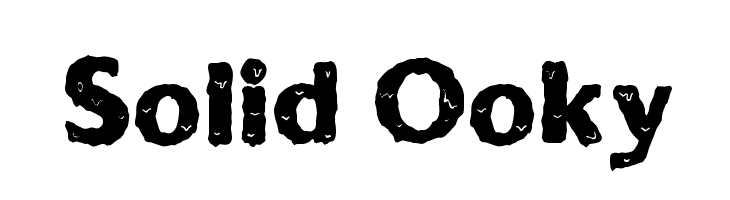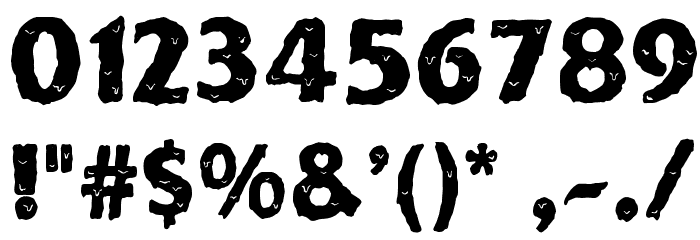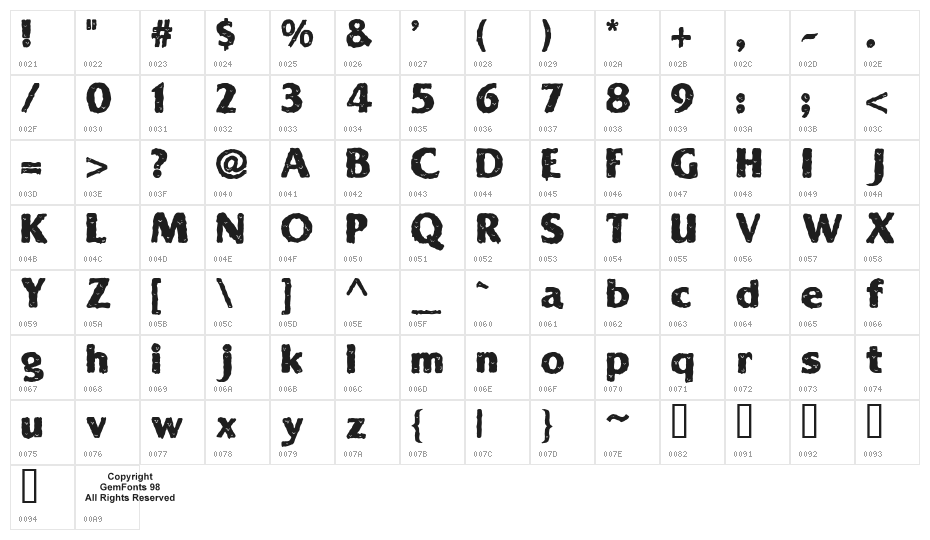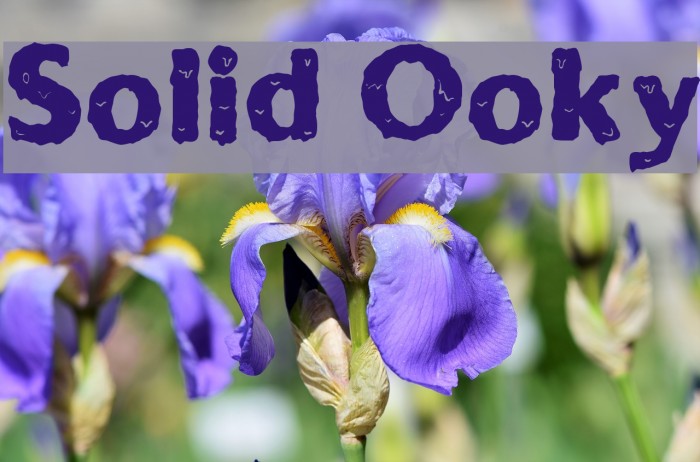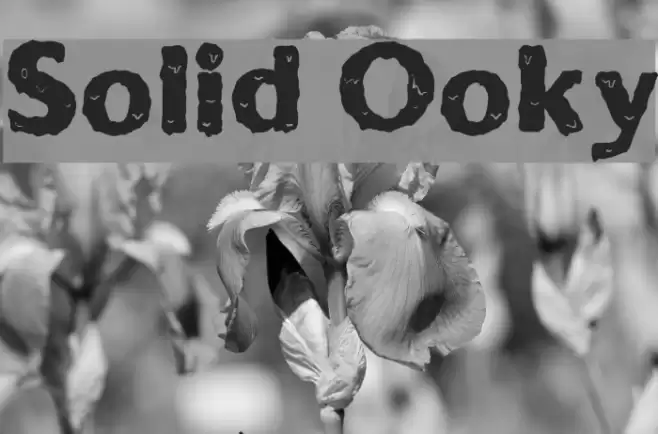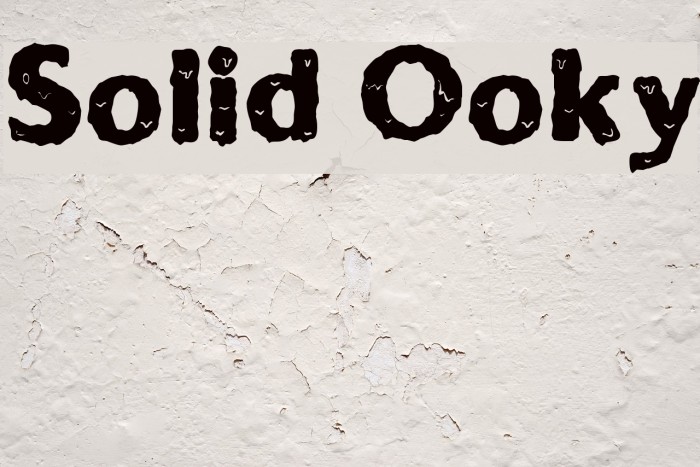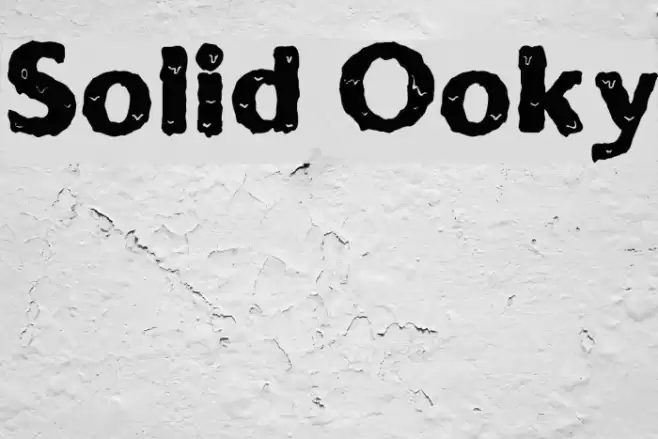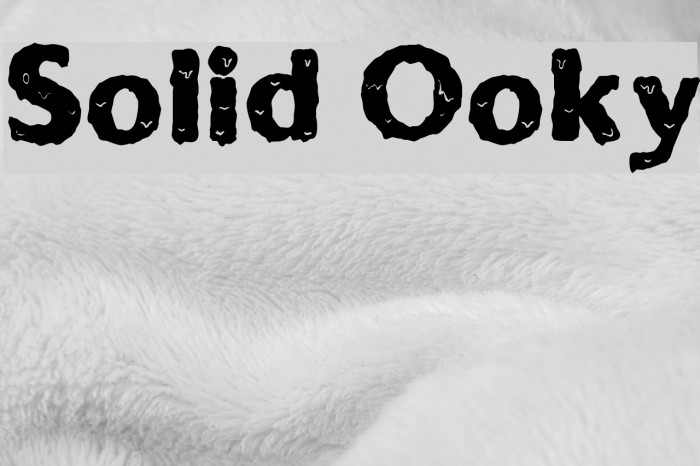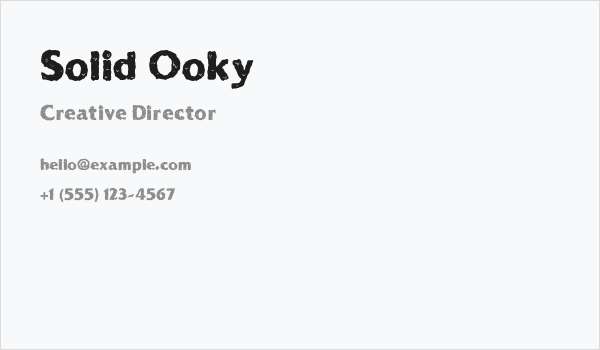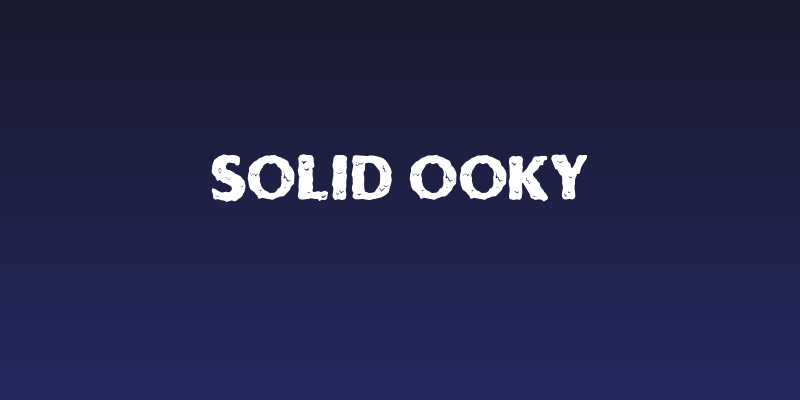
Solid Ooky Font
Solid Ooky Description
This font features a bold, textured appearance with a playful and slightly chaotic style. The characters have a rough, uneven surface that gives them a hand-crafted, organic feel. The uppercase and lowercase letters maintain a consistent weight, while the numbers and special characters follow the same design ethos, ensuring uniformity across all glyphs. The font's unique texture adds depth and character, making it stand out in any design. Its boldness and distinctiveness make it suitable for creative projects that require a touch of whimsy and individuality.
| Proposed Projects | Ideal for posters, album covers, children's book titles, and creative branding projects. |